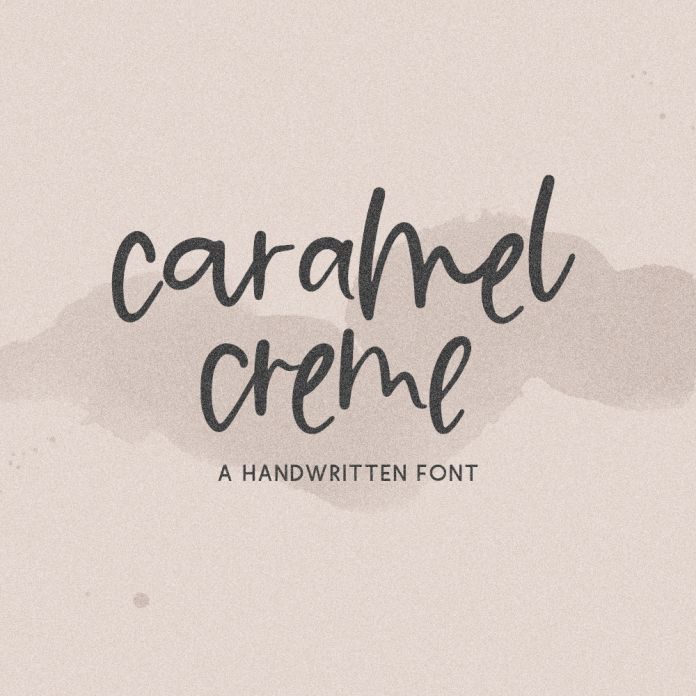
Introducing Caramel Creme, a modern script. Caramel Creme is like natural handwriting with a feminine feel.
Caramel Creme is best for:
Caramel Creme includes:
- 27 alternate characters
- 9 ligatures - bb, dd, ee, ff, ll, nn, oo, pp, ss